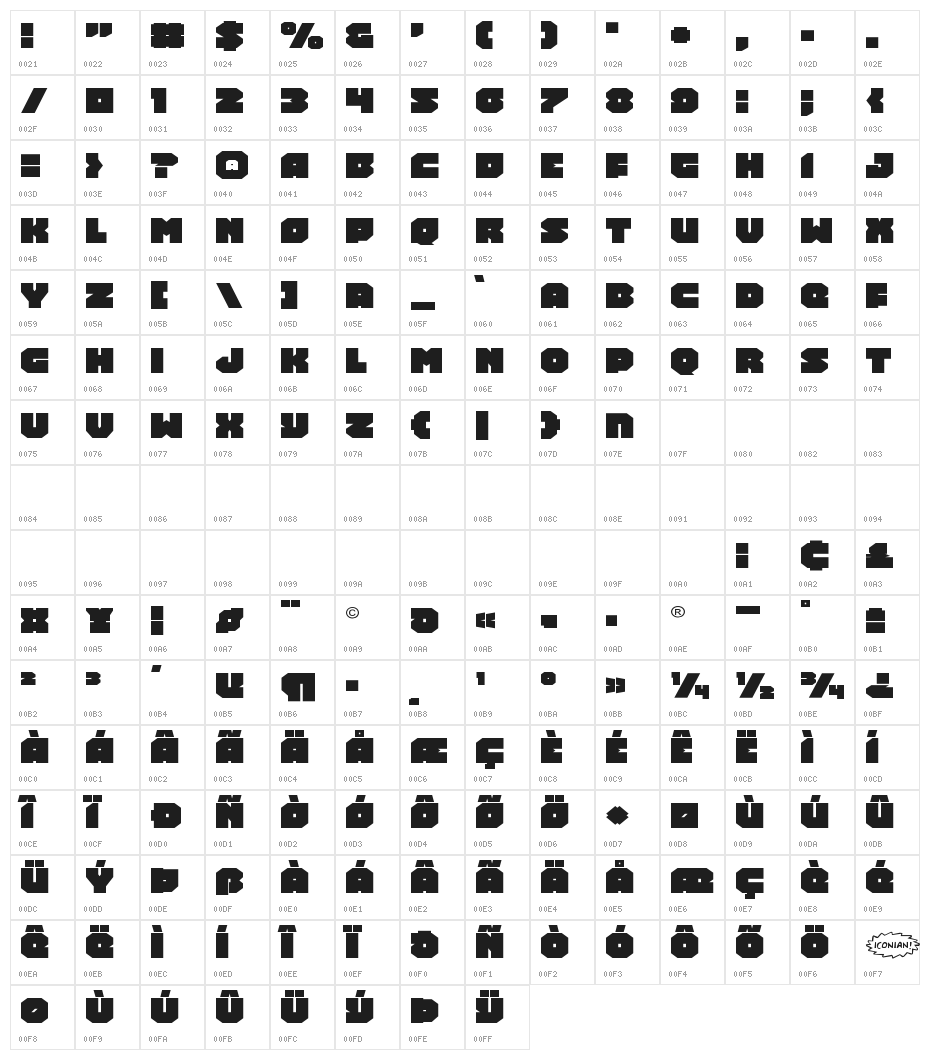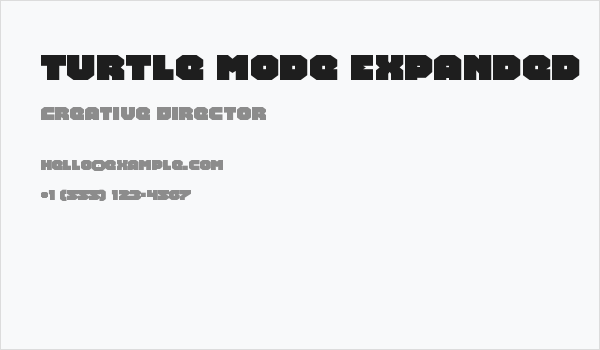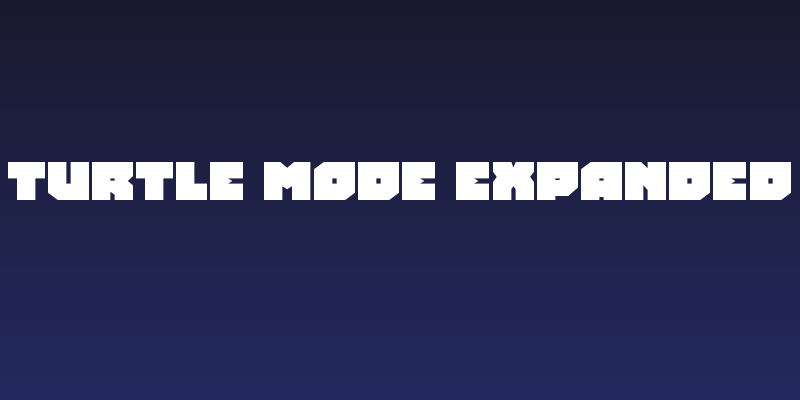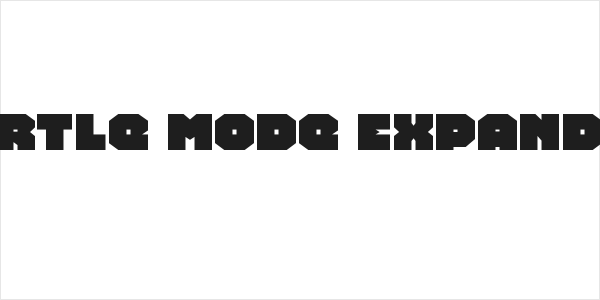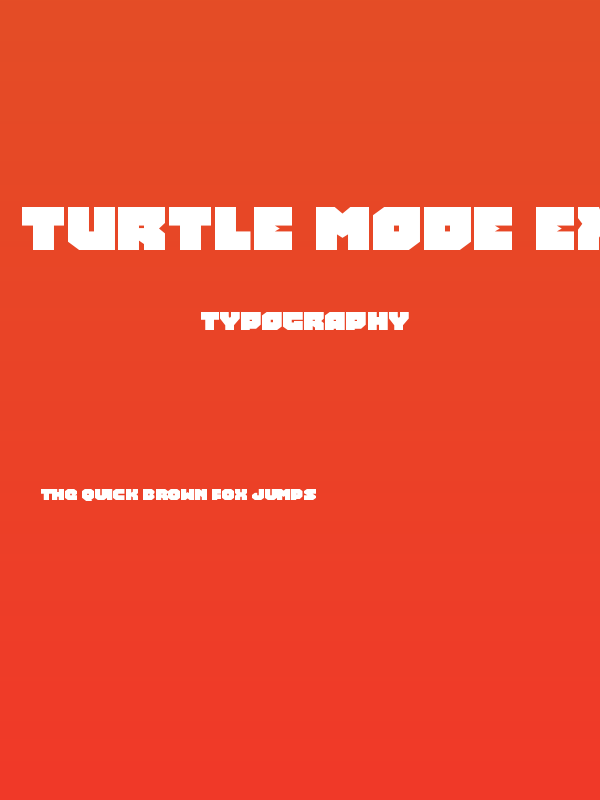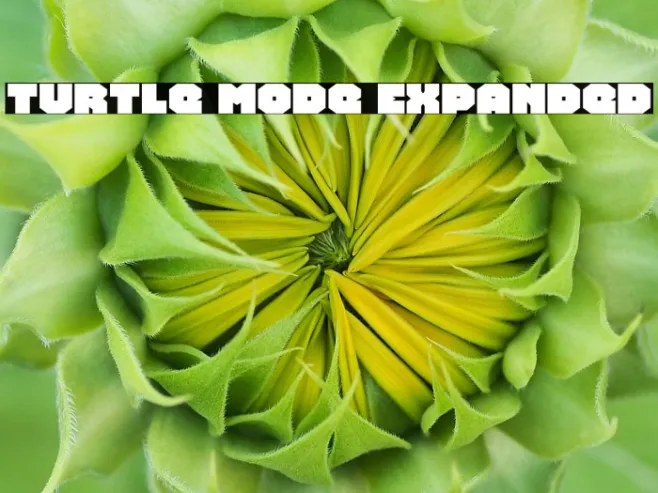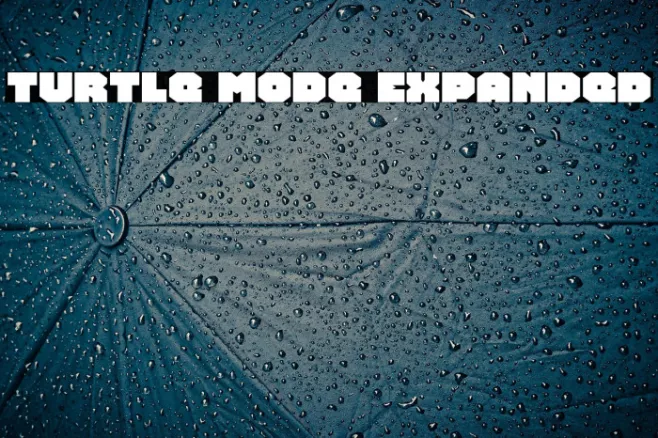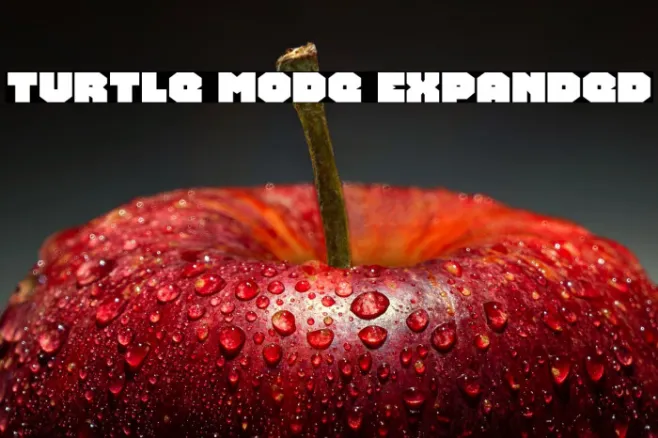
Turtle Mode Expanded Font
Turtle Mode Expanded Description
This font features a bold and geometric design with a distinctly modern and futuristic aesthetic. Each character is constructed with sharp angles and straight lines, creating a blocky and robust appearance. The uppercase and lowercase letters maintain a consistent style, emphasizing uniformity and strength. The numbers and special characters follow the same geometric pattern, ensuring a cohesive look across all glyphs. The font's design is highly stylized, making it ideal for projects that require a strong visual impact.
| Proposed Projects | Ideal for video game titles, tech branding, posters, and any project needing a strong, impactful typeface. |